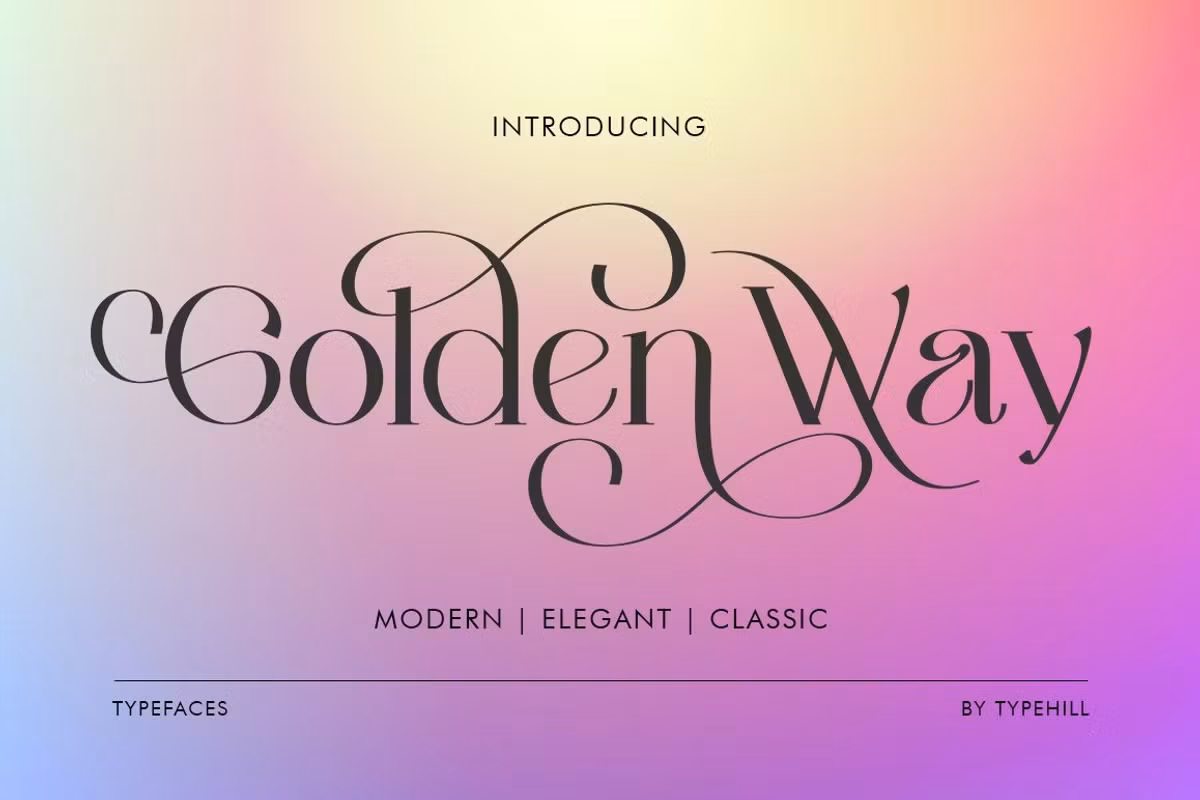
Golden Way Font Free Download is a luxurious serif font family that combines classic elegance with modern versatility. Featuring multiple weights and refined letterforms, Golden Way is perfect for high-end branding, editorial layouts, wedding invitations, fashion magazines, packaging, and websites that demand a sophisticated typographic presence.
With smooth curves, graceful serifs, and timeless proportions, Golden Way Font Free Download offers both readability and refined beauty. Whether you're creating elegant headlines or stylish body text, this font family gives you the flexibility to design with confidence and class.
Golden Way pairs seamlessly with minimalist sans-serifs or handwritten scripts, making it ideal for premium visual identities. Its luxurious feel and versatile range make it a favorite among designers looking to build a strong, elegant foundation across multiple projects.